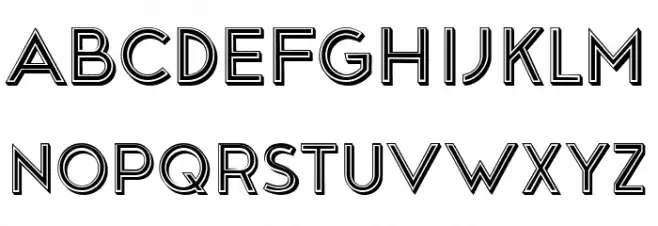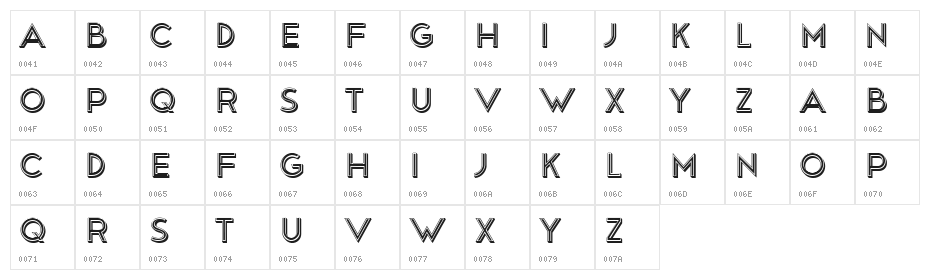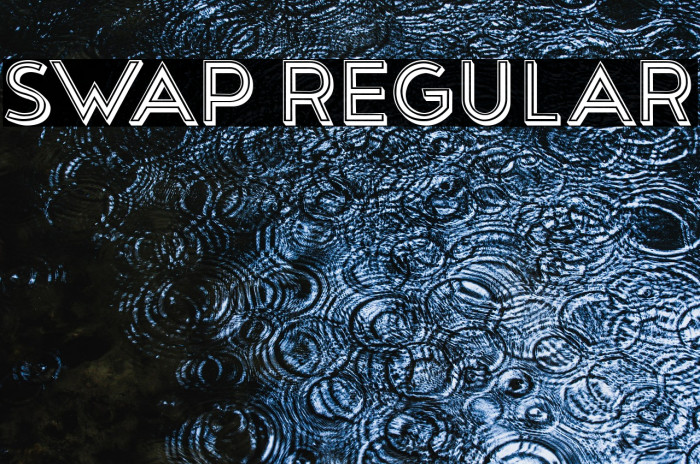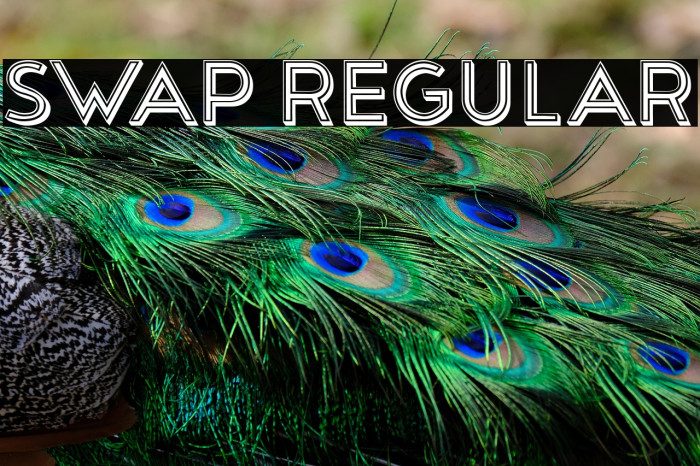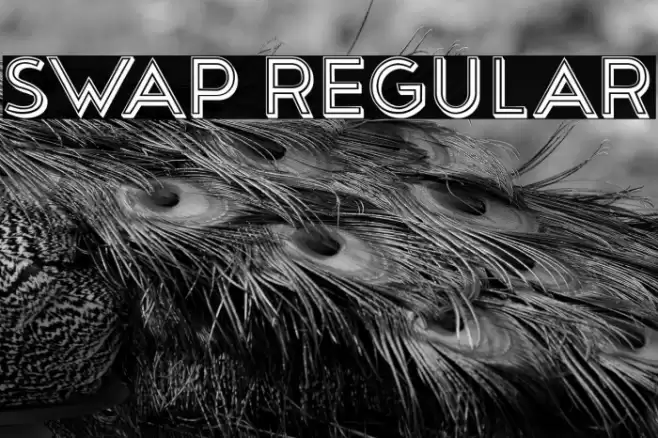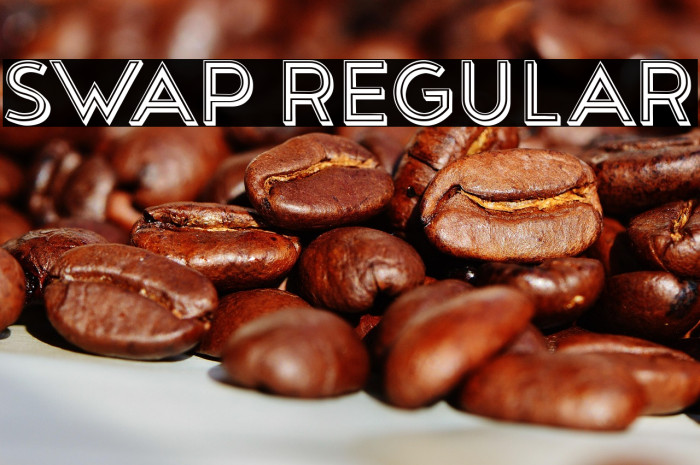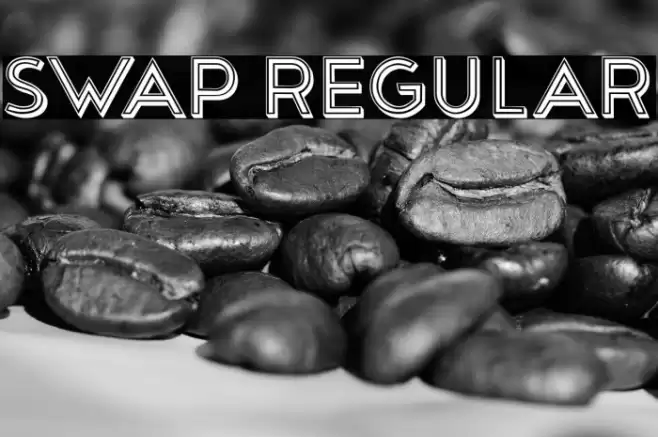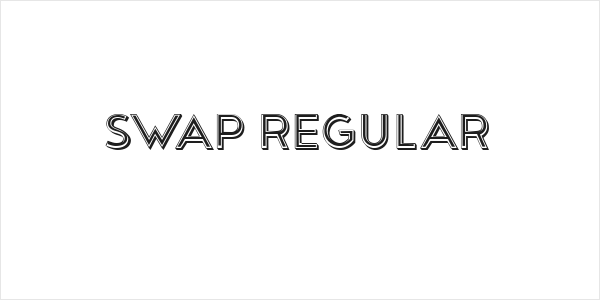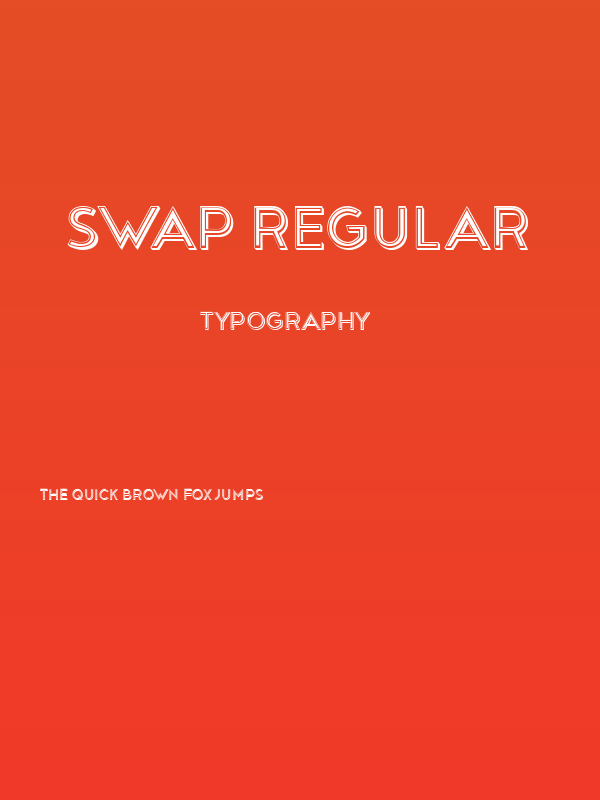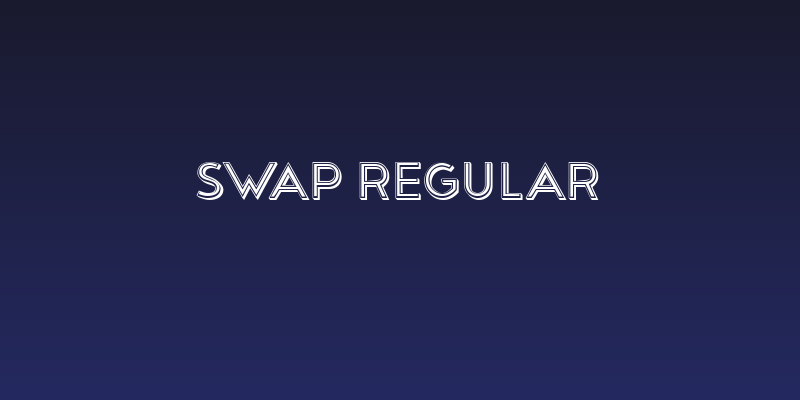
Swap Regular Font
Swap Regular Description
This font features a bold, geometric design with a double-line structure that creates a striking visual effect. The uppercase letters are uniform in height and width, giving a sense of balance and symmetry. The lines are clean and precise, with sharp angles and a modern aesthetic. The font's unique outline style makes it stand out, adding a layer of depth and dimension to the text. It is well-suited for projects that require a contemporary and eye-catching look, such as branding, advertising, and digital media.
| Proposed Projects | Ideal for branding, advertising, digital media, and any project needing a modern, eye-catching font. |